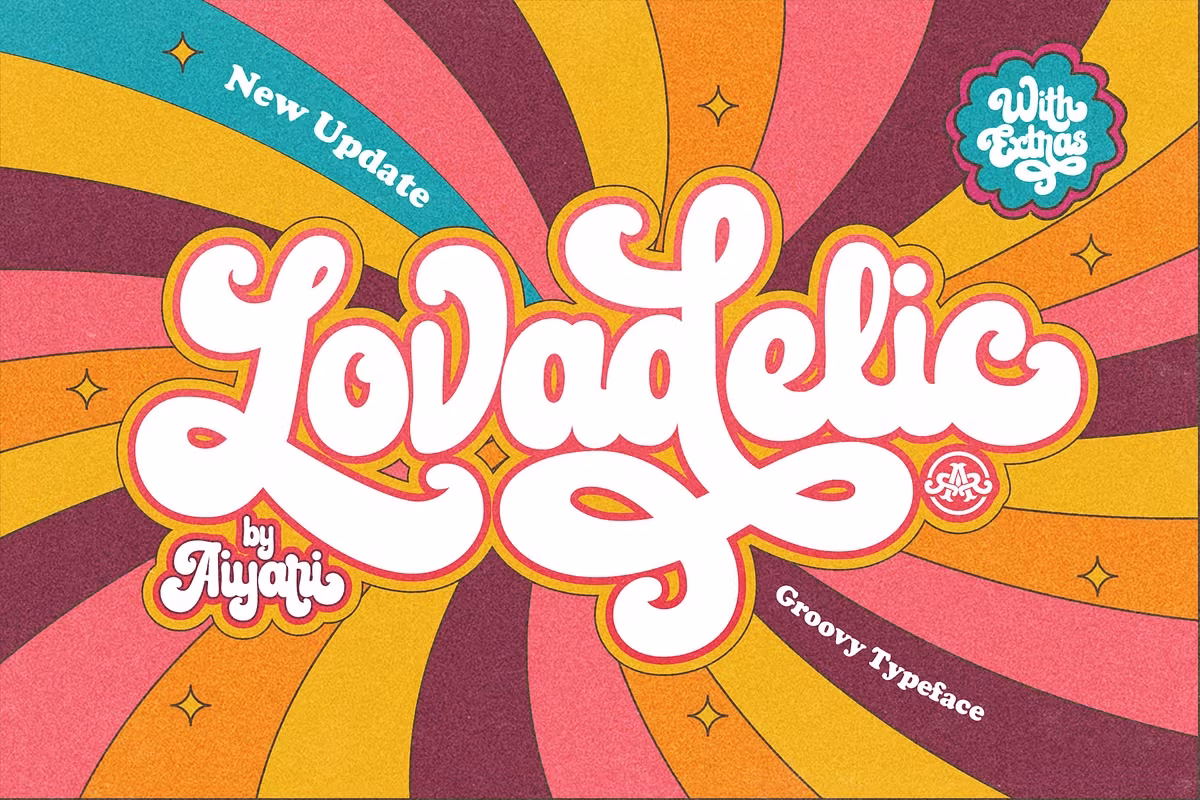
You must purchase this font for commercial use. However, you can download Lovadelic Font + Extras Free Download for testing purposes. Lovadelic is a groovy, retro-inspired typeface bursting with vintage charm and psychedelic flair. Perfect for posters, album covers, apparel design, branding, and social media graphics, Lovadelic brings a bold, free-spirited vibe that instantly transports your audience to the '60s and '70s era of peace, love, and vibrant expression.
This font includes unique stylistic alternates, decorative swashes, and bonus extras that let you customize your typography with flair. Whether you’re working on a nostalgic project or just want to inject some playful funk into your designs, Lovadelic Font + Extras Free Download delivers eye-catching results with ease. The bold letterforms and fluid curves make a strong statement in both print and digital formats. Download Lovadelic Font + Extras Free Download today to test its creative potential, and make sure to purchase the correct license for any commercial use. Let your designs groove with personality and retro soul!